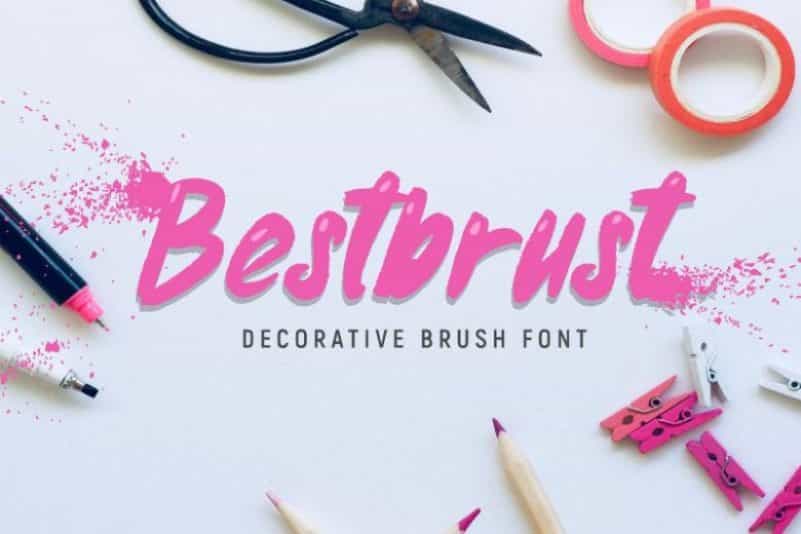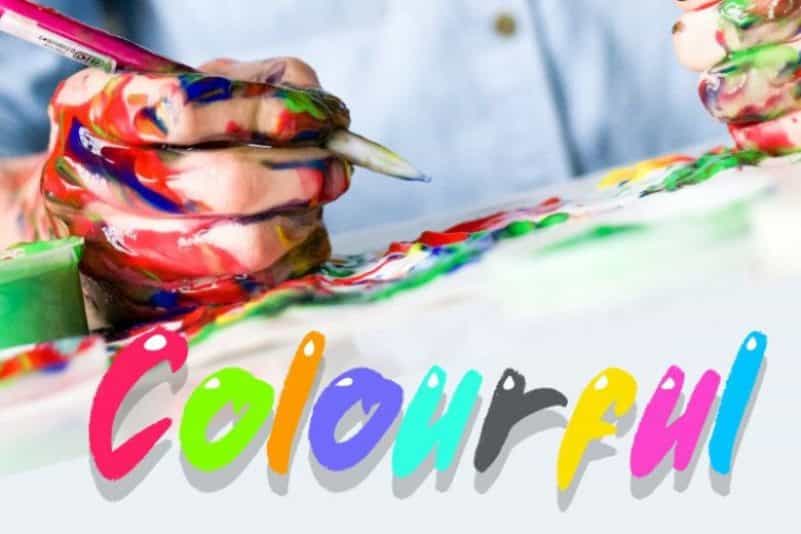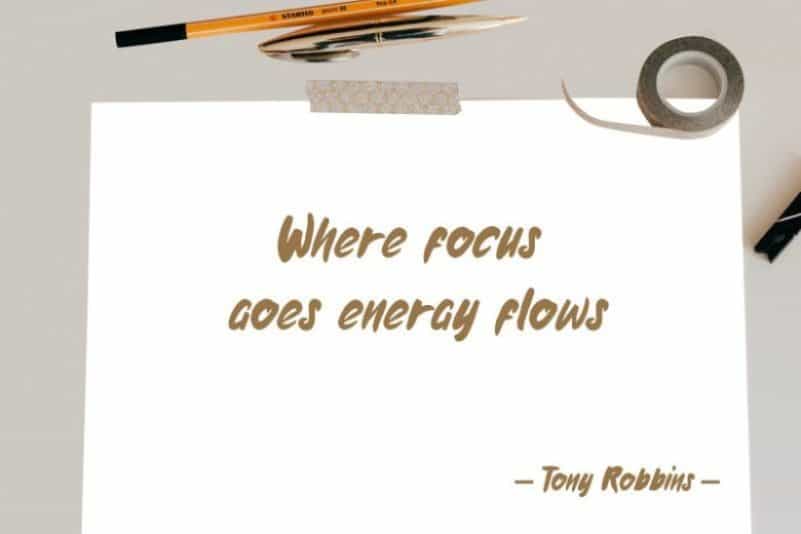
Bestbrust is an informal brush script font which gives a pretty trendy look. Apply it to quotes and websites or use the additional clipart for a more delightful designing process. Bestbrust is rich in ligatures that will make it seem genuinely hand painted, just as handwritten.